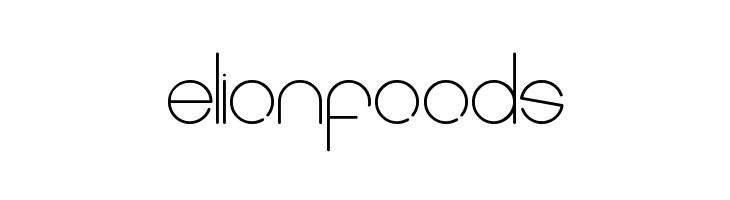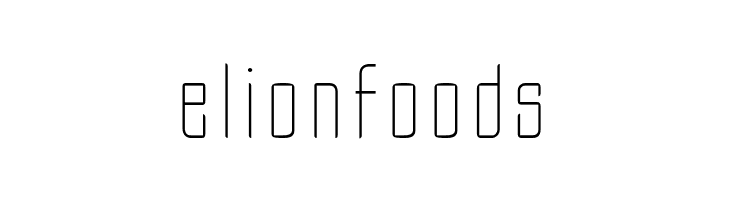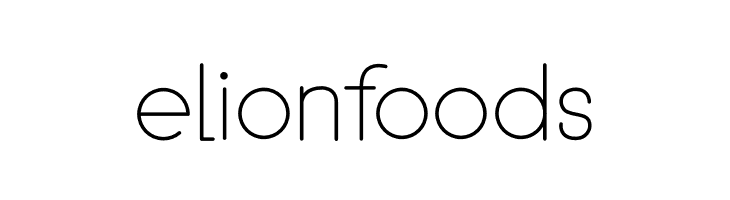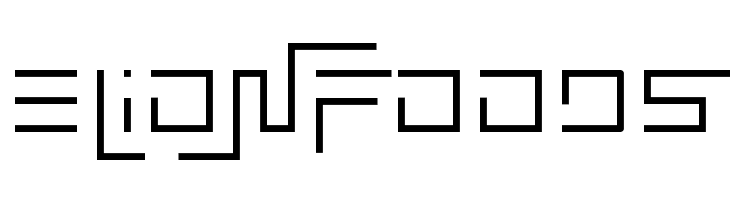
A modern, thin, and elegant font with geometric and minimalistic design.
A sleek, modern font with thin, elongated characters and a minimalist design.
A sleek, modern font with geometric shapes and minimalist design.
A geometric, linear font with thin strokes and a minimalist style.
A clean, minimalist typeface with geometric structure and thin strokes.
A sleek, modern font with thin lines and a minimalist design.
A clean, modern sans-serif font with a geometric and minimalist design.
A sleek, minimalist font with thin, uniform strokes and geometric shapes.
A modern, thin sans-serif font with a clean and minimalist style.
A sleek, minimalistic font with thin, uniform strokes and a modern, elegant style.